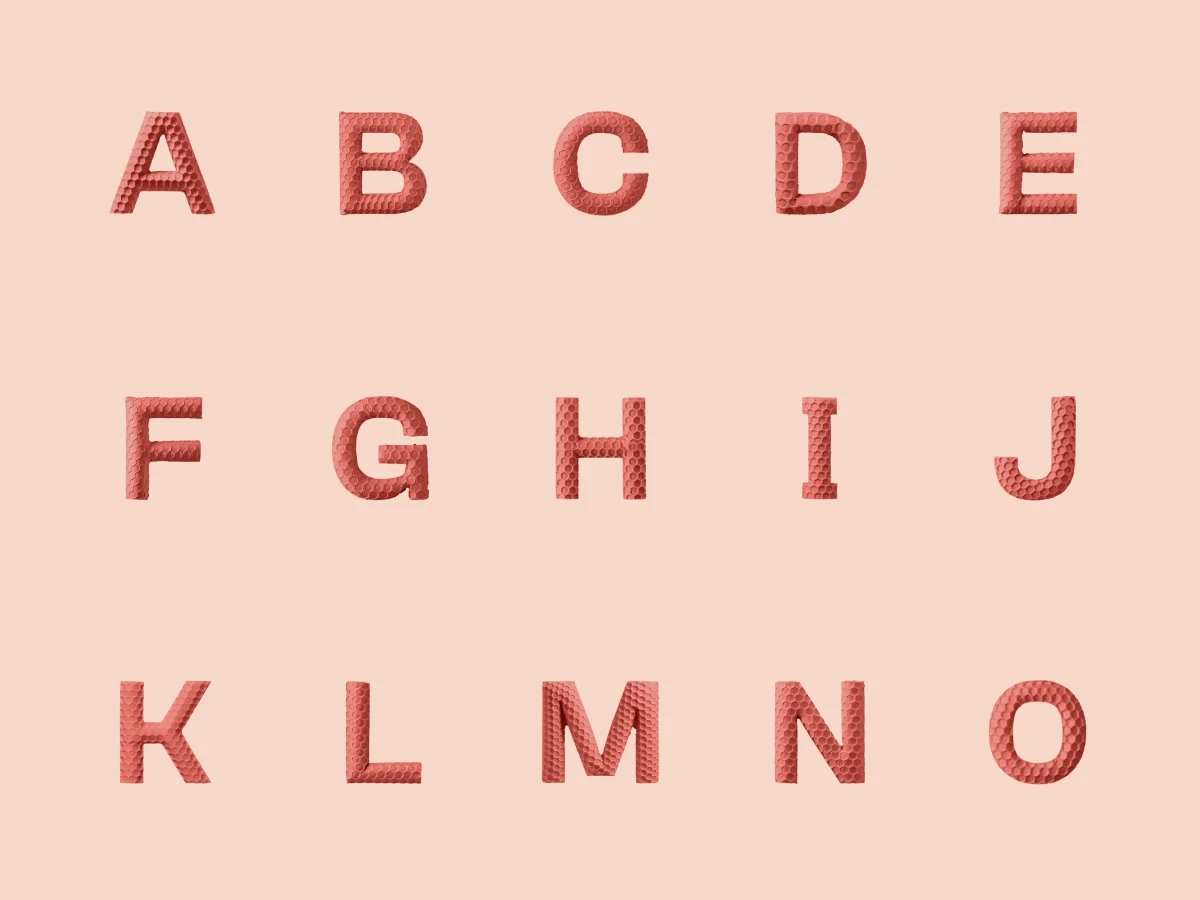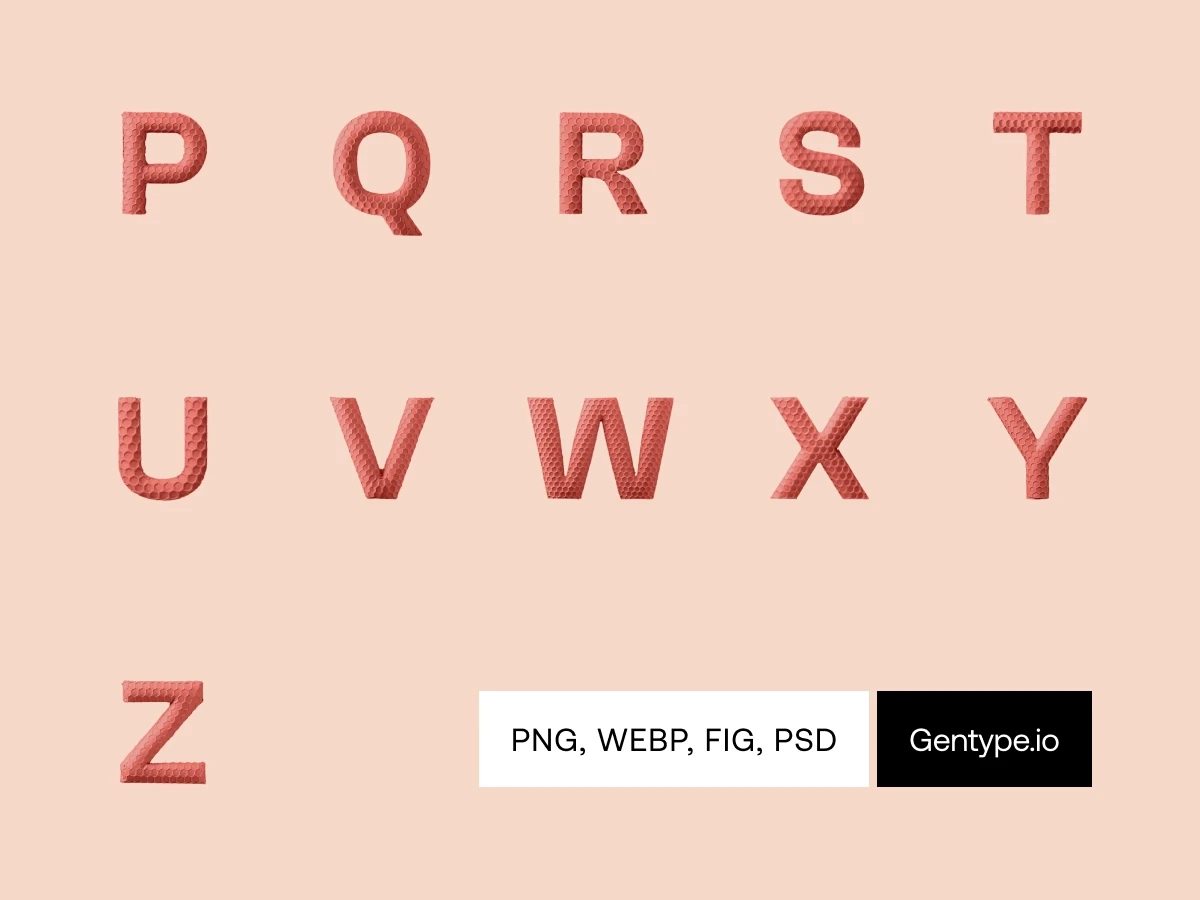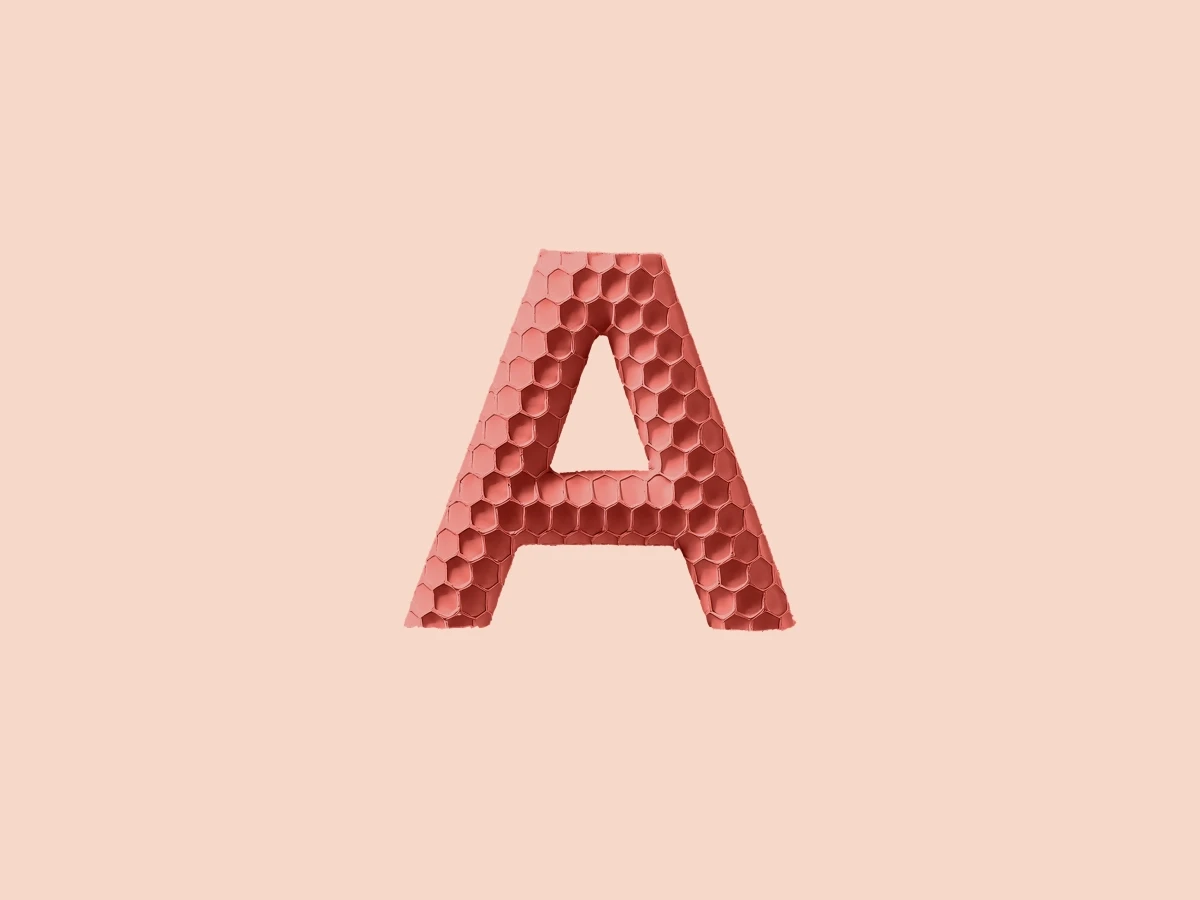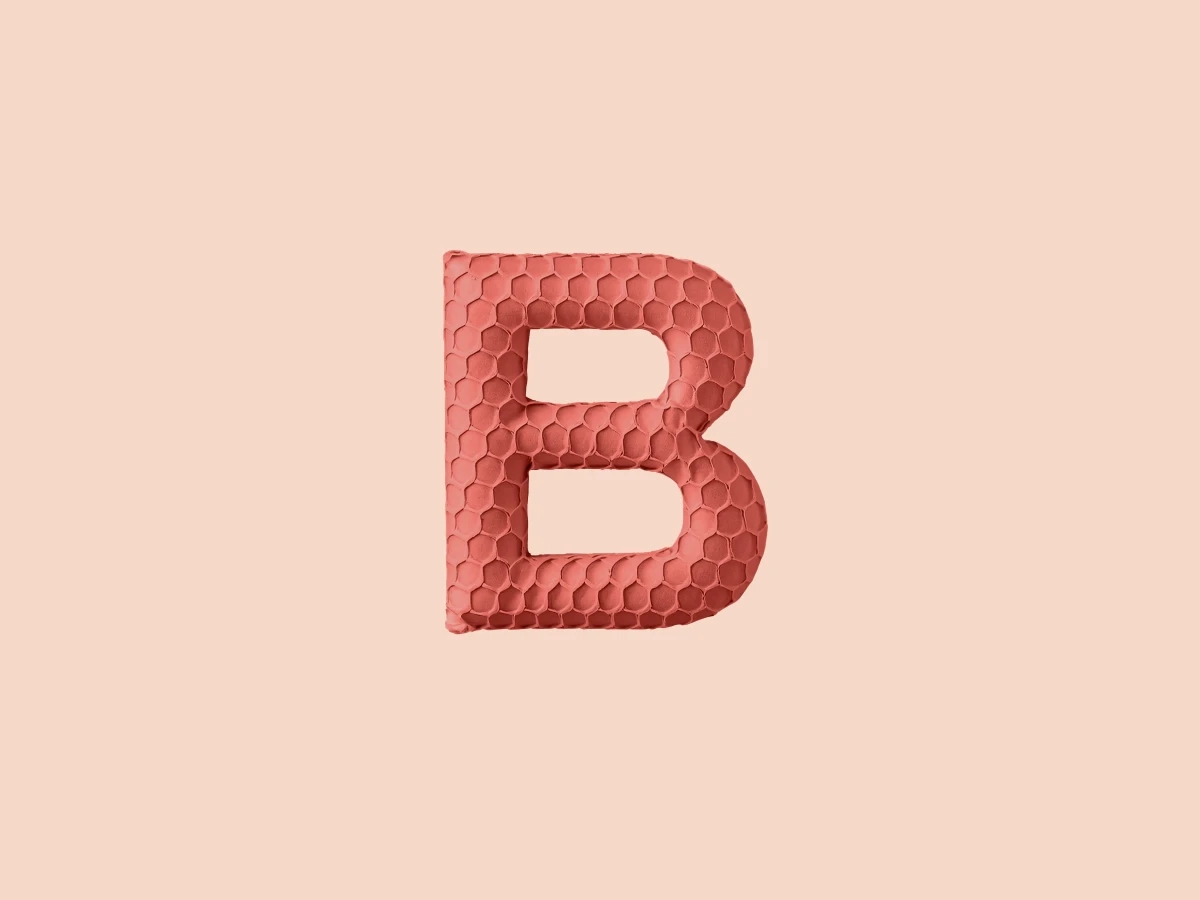
Introducing Hexa Bedside, a theme with letters as warm as a late-night hospital room and textured like the cardboard beneath your favourite snacks. With a subtle hexagon pattern peeking through, each letter has a tactile feel that’s uniquely comforting. Created while waiting for the next doctor’s rounds, this one’s close to the heart. Perfect for adding a personal, textured touch to your designs.